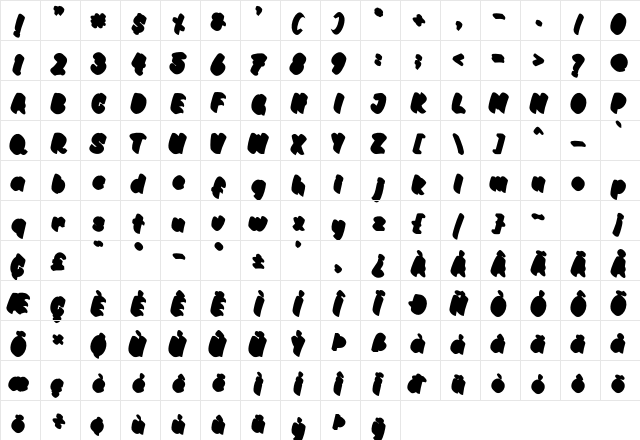
Great Hustle Shadow Regular
Design Context for Great Hustle Shadow Typeface
Great Hustle Shadow is built around its visual character rather than neutral utility — its distinctive forms are designed to make an impression at display sizes.
Font Pairing: Pair with a clean neutral sans-serif for body copy to let Great Hustle Shadow's character lead without overwhelming the composition.
Pro Tip: Use Great Hustle Shadow exclusively at display sizes — it was designed to be seen, not read at length. Let a neutral companion handle body copy.